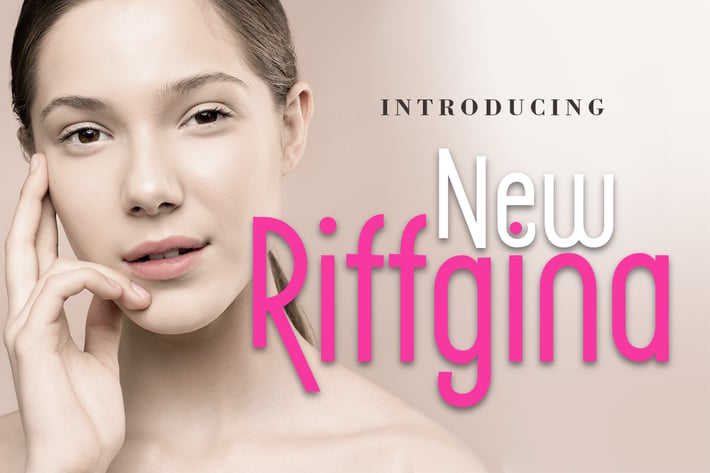
New Riffgina - Sans Font
Introducing New Riffgina, an elegant, simple, and beauty slab serif font. Its unique and lovely feel.
So perfect for you who needs a typeface for logo designs, magazine, social media, brochure, and many more.